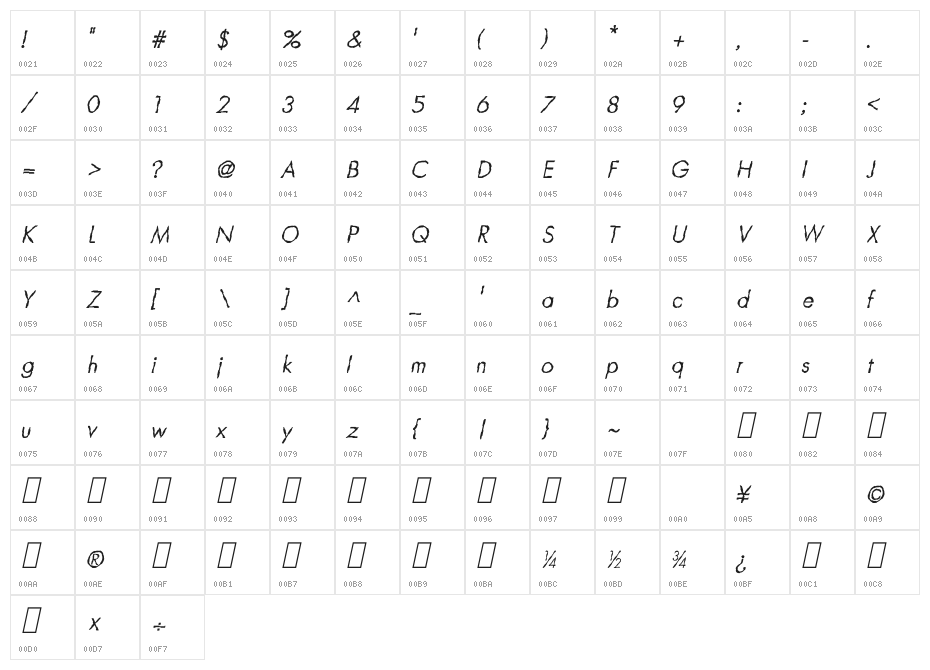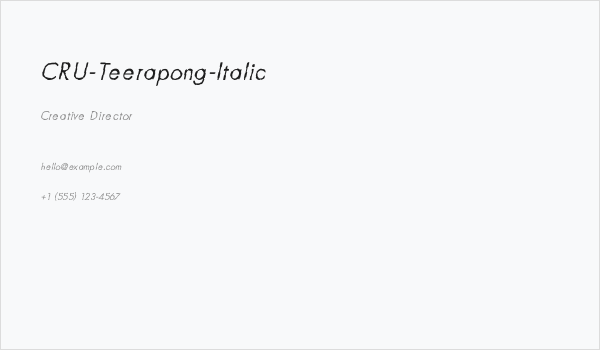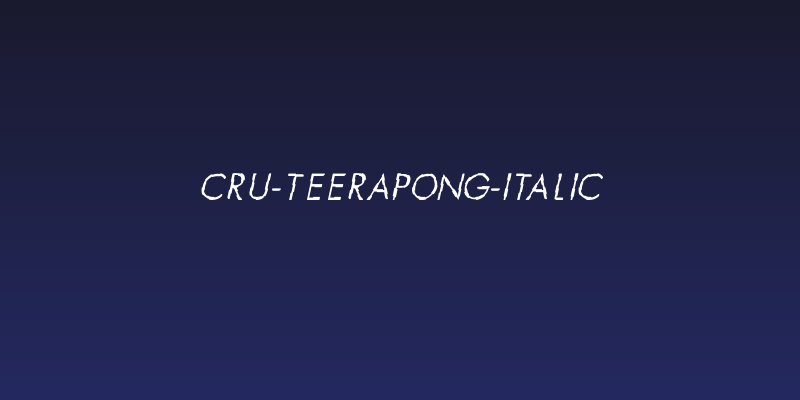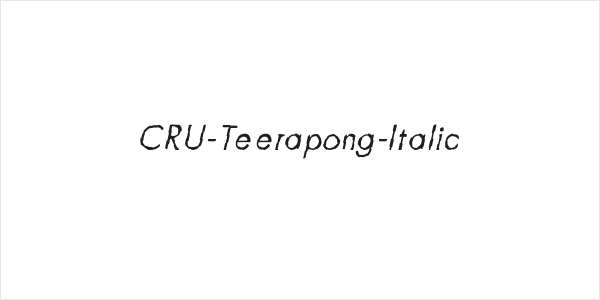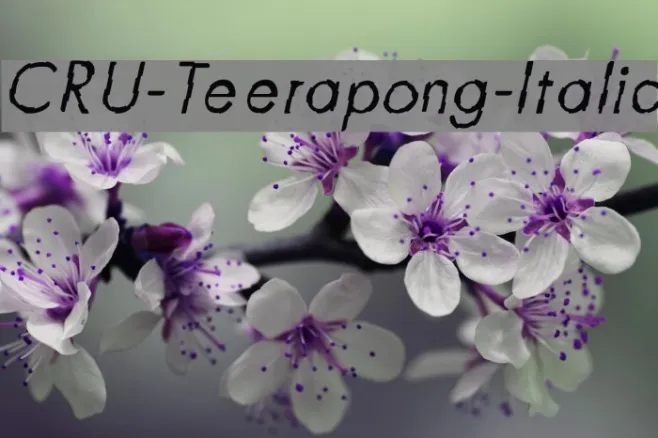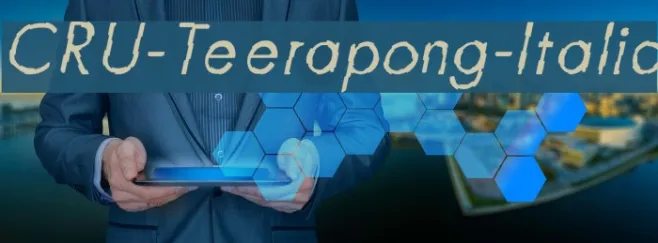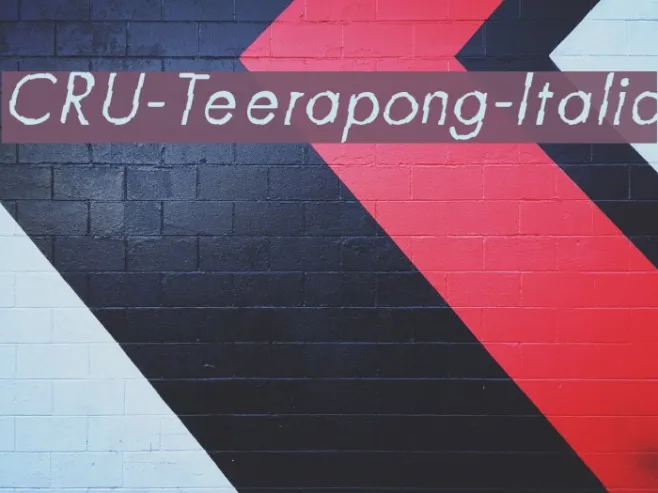
CRU-Teerapong-Italic Font
CRU-Teerapong-Italic Description
This font features a dynamic and energetic italic style, characterized by its slanted and slightly cursive letterforms. The strokes are consistent with a medium contrast, giving it a lively yet readable appearance. The uppercase letters are bold and assertive, while the lowercase letters maintain a fluidity that complements the overall design. Numbers and special characters are crafted with the same attention to detail, ensuring uniformity across all glyphs. The font's playful yet sophisticated nature makes it versatile for various design applications.
| Use Case | Headlines, Logos, Editorial design |
| Proposed Projects | Ideal for creative projects such as branding, advertising, and editorial design where a touch of elegance and movement is desired. |